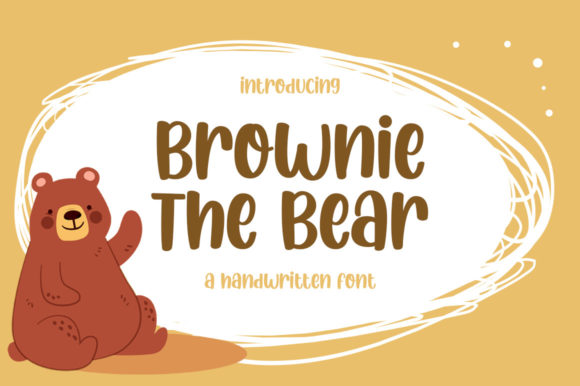
The Brownie The Bear Font: A Cute Display Font for Chalkboard Quotes and Teaching Materials
Have you ever been working on a design project, and suddenly, you’re stuck on finding the perfect font? I recall a recent experience where I was creating a set of chalkboard quotes for a client’s educational materials. I scoured the internet for a font that would give my designs a personal, realistic feel. That’s when I stumbled upon the Brownie The Bear font. In this article, I’ll share my experience with this adorable display font, its features, and how to make the most of it in your designs.
A Personal Design Moment: Finding the Perfect Font
I was working on a project for a client who needed a set of chalkboard quotes for their teaching materials. I wanted a font that would add a personal touch to the designs. After searching through numerous font libraries, I came across Brownie The Bear. Its authentic look immediately caught my attention, and I knew I had found the perfect fit.
An Honest Review of Brownie The Bear Font
What I Love About Brownie The Bear Font
• ✨ Authentic look: The font has a genuine, hand-written feel that makes it perfect for chalkboard quotes and teaching materials.
• ✅ Easy to read: Despite its playful nature, the font is surprisingly easy to read, even in smaller sizes.
• 💕 Cute and charming: The font’s adorable bear-inspired design makes it perfect for projects that require a touch of whimsy.
While Brownie The Bear font is an excellent choice for many projects, there are a few things to keep in mind:
• 🤔 Limited use cases: Due to its playful nature, Brownie The Bear font might not be the best fit for more formal or professional projects.
• ⚠️ Glyph limitations: While the font has a range of glyphs, it might not have every special character or symbol you need.
Brownie The Bear font was designed with the intention of creating a font that would evoke a sense of nostalgia and playfulness. The designer aimed to create a font that would be perfect for chalkboard quotes, teaching materials, and other creative projects.
A: Brownie The Bear font is a cute display font designed for chalkboard quotes, teaching materials, and other creative projects.